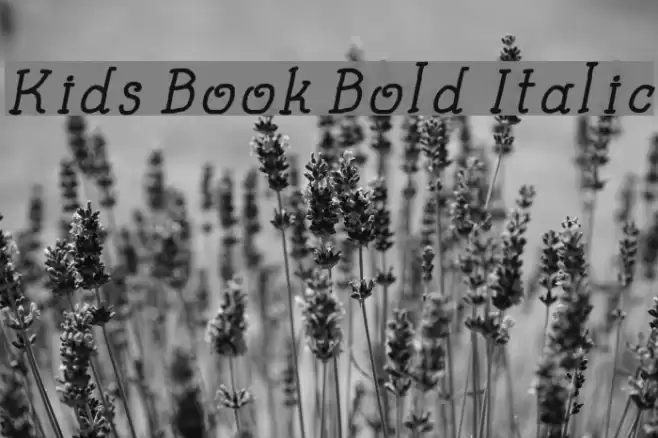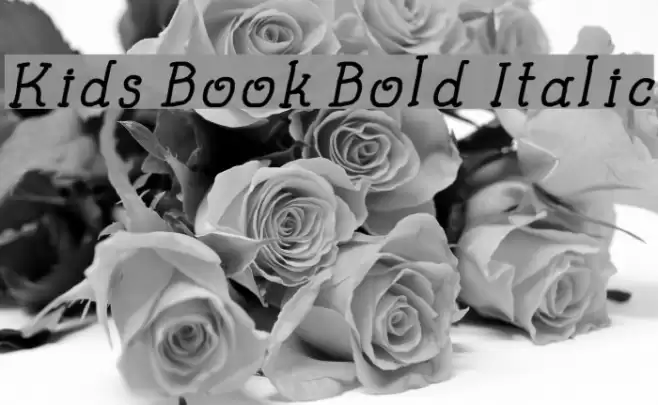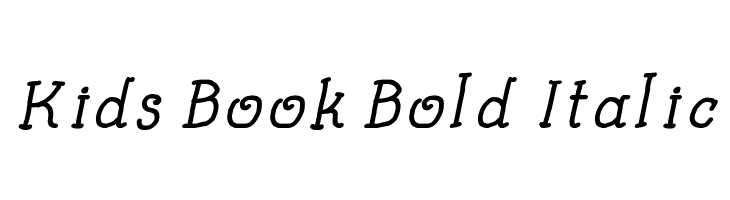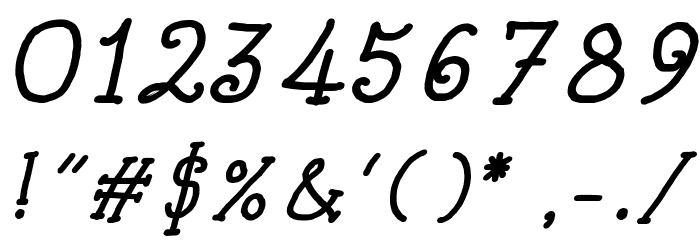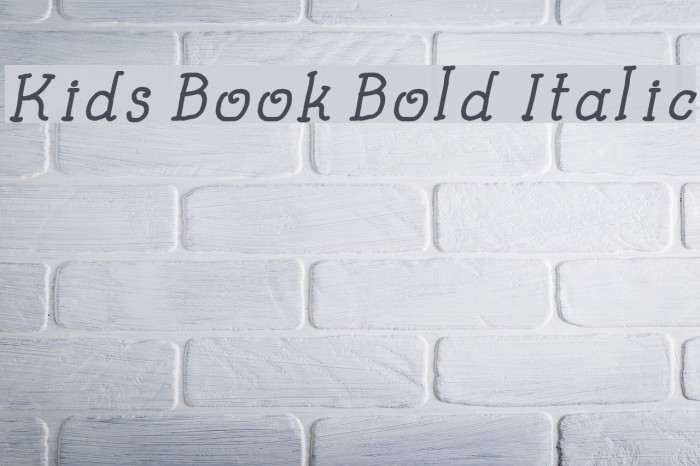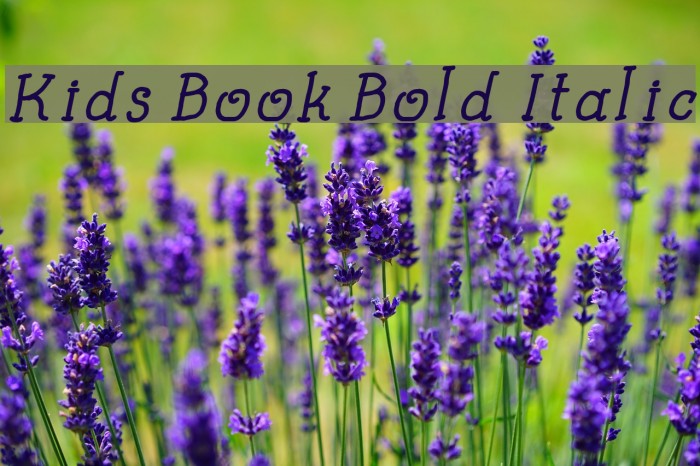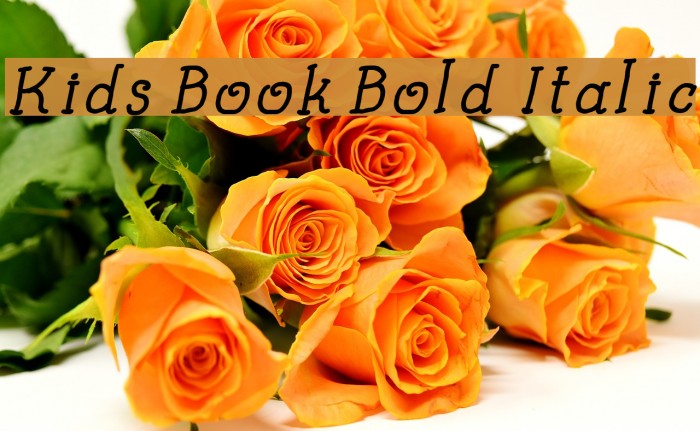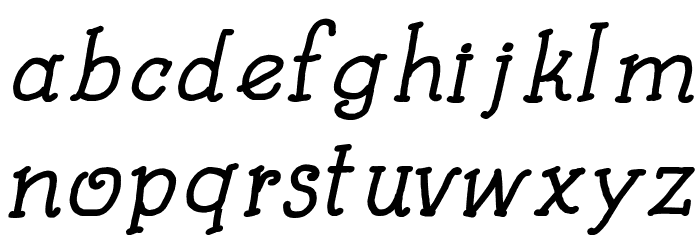
Kids Book Bold Italic Font
Kids Book Bold Italic Description
This playful and whimsical font features a bold and italicized style, perfect for capturing the imagination of children. The characters are slightly slanted, adding a dynamic and lively feel. The strokes are thick and rounded, providing a sense of friendliness and approachability. Each letter is distinct and easy to read, making it ideal for young readers. The font includes a full set of uppercase and lowercase letters, numbers, and a variety of special characters, ensuring versatility in design projects. Its unique style is reminiscent of handwriting, adding a personal touch to any text.
A bold, italicized, and playful font with a handwritten feel, perfect for children's materials from Uncategorized fonts.
- Proposed Projects: Ideal for children's books, educational materials, playful branding, and toy packaging.
- Overall Style: Playful
- Use Case: Headlines, Children's books, Logos